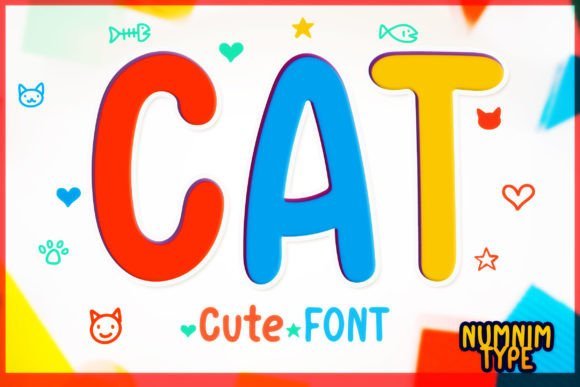
Meet Your New Best Friend: Cat Font
Who among us hasn’t felt a rush of creativity when brainstorming new project ideas with a cup of coffee in hand and a furry companion by our side? As we stare at a blank page or screen, our minds start racing with possibilities, and that’s when the magic happens. For designers, the thrill of creating something new and unique is what drives us forward. And that’s exactly what Cat Font is all about – unleashing your inner creativity and bringing joy to your designs.
Cat Font is a vibrant, handwritten font that’s perfect for adding a playful touch to your projects. Whether you’re designing stickers, mugs, t-shirts, or ornaments, this font is sure to bring a smile to people’s faces. With its fun and playful characters, Cat Font is a valuable addition to any designer’s toolkit, and its PUA encoding makes it easy to access all the glyphs and swashes you need.
Cat Font Key Features
- Font Family: Cat Font is a unique, handwritten font with a playful and whimsical feel.
- Unique Characteristics: Features distinctive, hand-drawn letterforms with subtle imperfections, giving it a natural and organic feel.
Designer Review: Cat Font
Overall, I’d say Cat Font is an interesting addition to the world of typography. It’s certainly a unique take on what a font can be, and I appreciate the creativity that went into its design.
- ✨ The font’s hand-drawn feel adds a touch of whimsy and personality to any text it’s used with. It’s perfect for projects that need a bit of playfulness.
- ✨ The font’s bold lines and expressive strokes make it stand out on both digital and physical surfaces. It’s great for eye-catching headlines and titles.
- ⚠️ The font’s irregularities can make it difficult to read at smaller sizes. Be cautious when using it for body text or fine details.
- ⚠️ The font’s bold lines can also make it overwhelming when used extensively. Use it sparingly to avoid visual fatigue.
Cat Font is a fun, quirky addition to any designer’s toolkit. While it may not be suitable for every project, it’s perfect for those that need a bit of personality and flair. Just be mindful of its limitations and use it thoughtfully.
Cat Font is ideal for use in cat-themed designs, such as cat calendars, cat merchandise, or cat-related marketing materials. It can also be used to add a playful touch to other designs, such as children’s books or social media graphics.